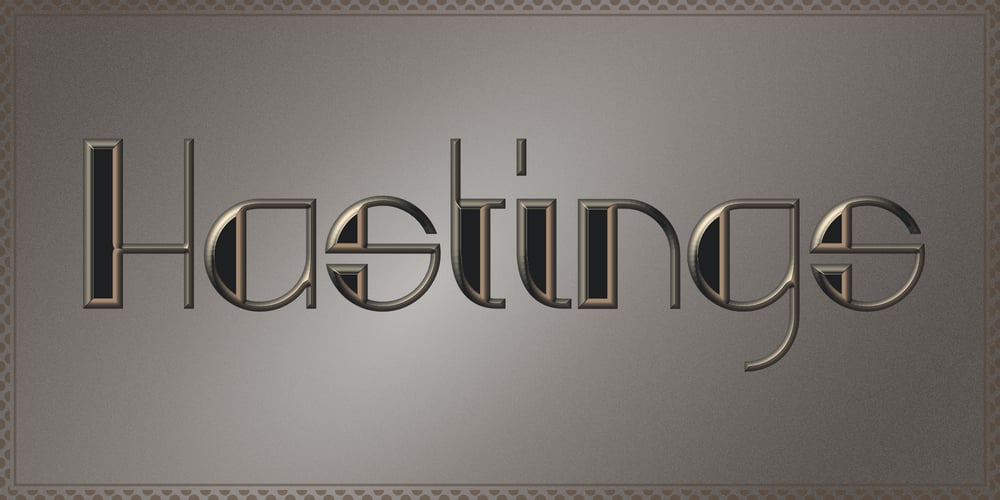
Hastings Font Family was designed by Michael Kovacevich and published by MKGD. Hastings contains 1 styles and family package options. Hastings was inspired by my appreciation for old fashioned English murder mysteries set in the early part of the twentieth century. No one seems to capture the ambience of the roaring twenties or thirties better than the Brits. Everything from the clothing, to the cars, to the telephones, down to the smallest accessories like the pens, all seem to have been appropriated from the local museum. I’m hopeful that this typeface also embodies similar feelings with its sleek and streamlined Art Deco features.Hastings has a glyph count of 389 and supports the following languages;Afrikaans, Albanian, Asu, Basque, Bemba, Bena, Bosnian, Catalan, Chiga, Colognian, Cornish, Croatian, Czech, Danish, Embu, English, Esperanto, Estonian, Faroese, Filipino, Finnish, French, Friulian, Galician, German, Gusii, Hungarian, Icelandic, Indonesian, Irish, Italian, Kabuverdianu, Kalaallisut, Kalenjin, Kamba, Kikuyu, Kinyarwanda, Latvian, Lithuanian, Low German, Lower Sorbian, Luo, Luxembourgish, Luyia, Machame, Makhuwa-Meetto, Makonde, Malagasy, Malay, Maltese, Manx, Meru, Morisyen, North Ndebele, Norwegian Bokmål, Norwegian Nynorsk, Nyankole, Oromo, Polish, Portuguese, Romanian, Romansh, Rombo, Rundi, Rwa, Samburu, Sango, Sangu, Scottish Gaelic, Sena, Shambala, Shona, Slovak, Slovenian, Soga, Somali, Spanish, Swahili, Swedish, Swiss German, Taita, Teso, Turkmen, Upper Sorbian, Vunjo, Walser, Zulu